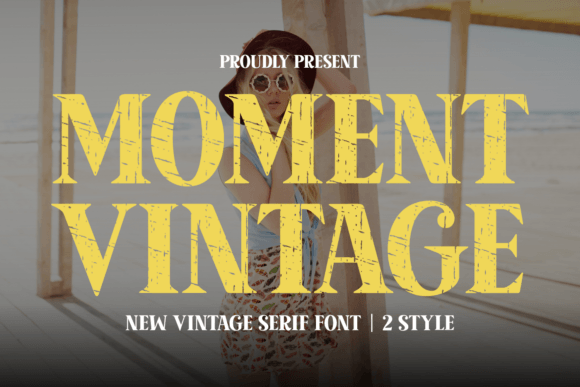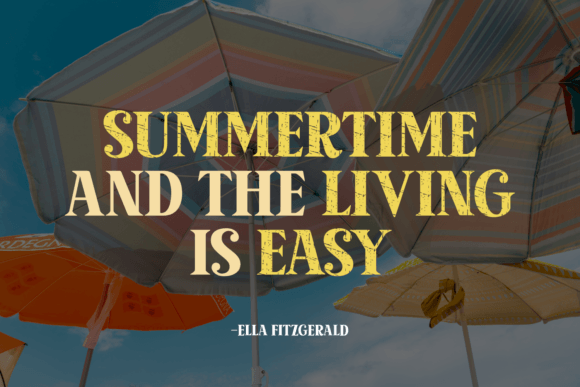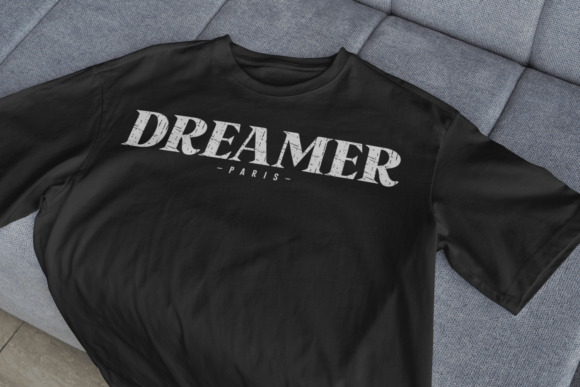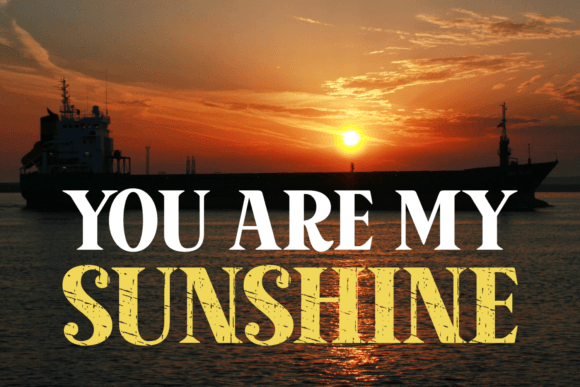
Moment Vintage Font
About the Moment Vintage Font
Meet Moment Vintage Font, a stunning font that brings a touch of elegance and professionalism to any design. Bring a touch of retro charm to your designs with Moment Vintage, a bold serif font featuring a distressed texture for an authentic vintage feel. This typeface comes in two unique styles, perfect for posters, logos, apparel, branding, and more. Ideal for evoking nostalgia and capturing timeless elegance with a bold edge.
Moment Vintage’s bold, distressed texture makes it ideal for headlines, logos, and short-form text in branding materials and posters. Its retro charm works well for apparel designs and packaging that target a vintage-inspired aesthetic. However, avoid using it for body text or long paragraphs; the heavy texture and bold weight can hinder readability.
The font’s core personality is confident and nostalgic, lending itself to brands that value authenticity and heritage. Pairing it with a clean sans-serif like Open Sans for body copy provides excellent contrast and readability. For a more vintage-inspired look, consider pairing it with a script font like Great Vibes, but use it sparingly as an accent.
A geometric sans-serif like Montserrat can create a modern contrast to Moment Vintage’s classic feel, suitable for projects that blend retro and contemporary aesthetics. Avoid pairing it with other highly textured or ornate fonts, as this will overwhelm the design.
Moment Vintage Font Usage Examples
Moment Vintage Font Example